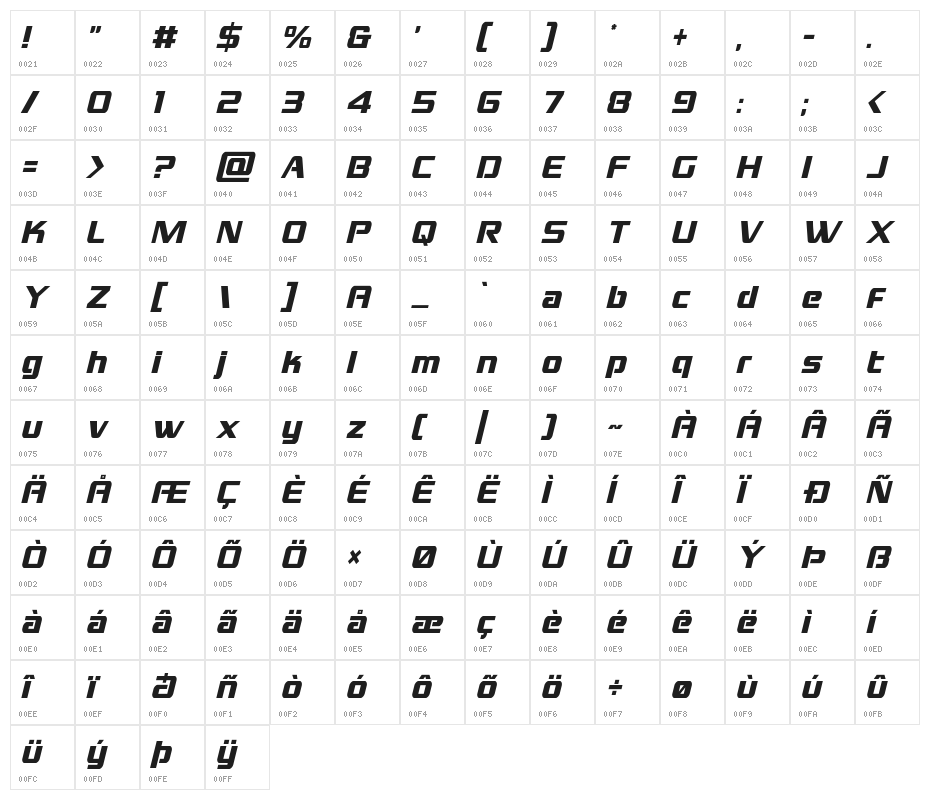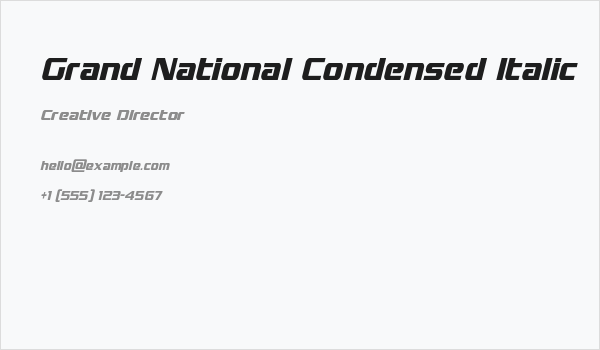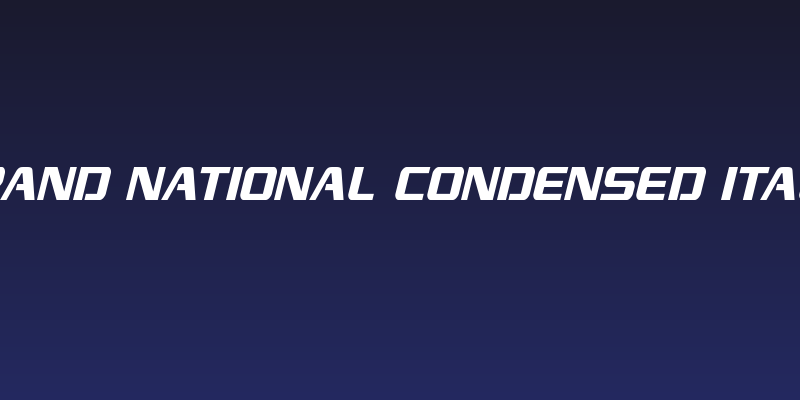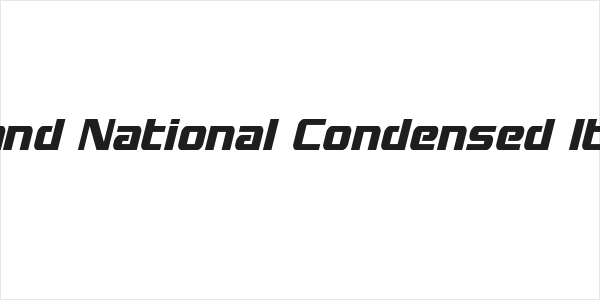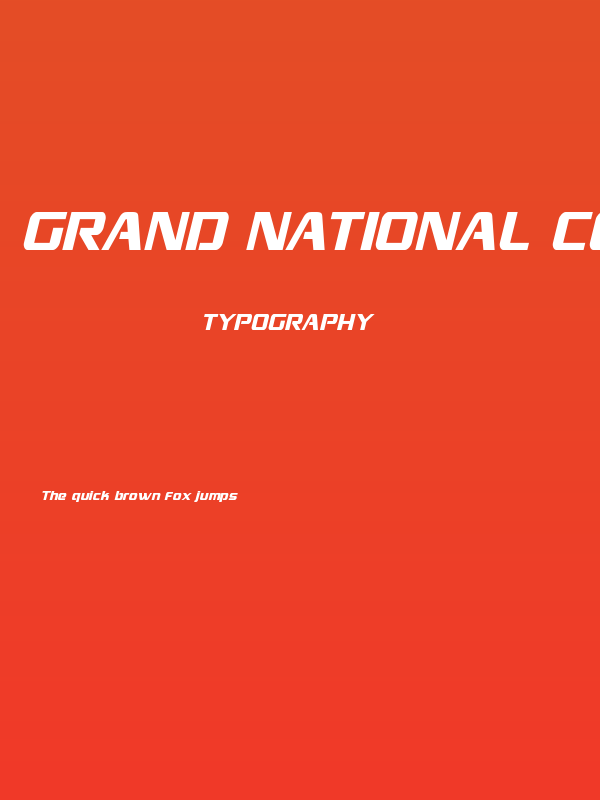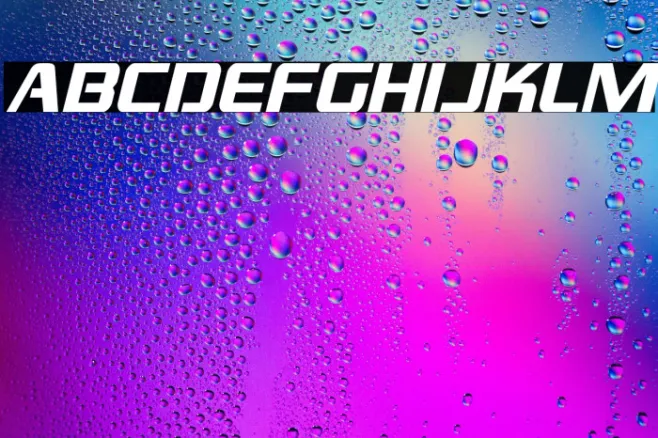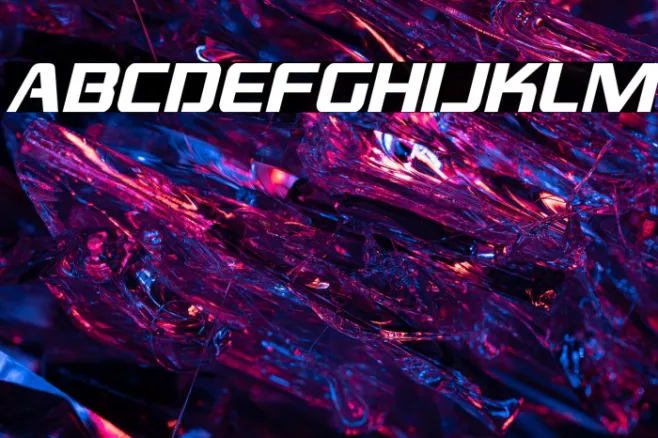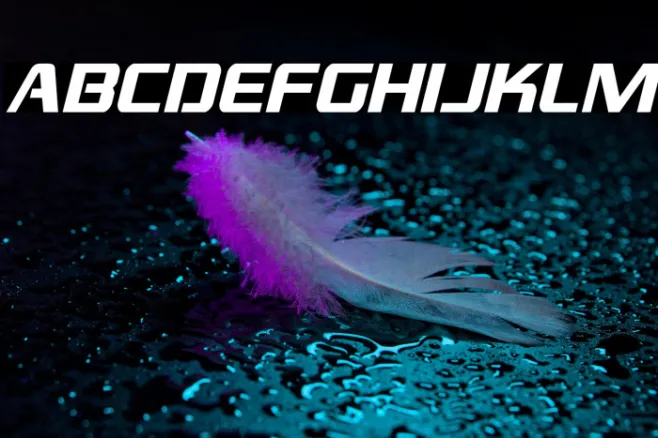
Grand National Condensed Italic Font
Grand National Condensed Italic Description
This font features a dynamic and modern design with a condensed structure and italicized style. The characters are sleek and angular, giving a sense of motion and energy. The uppercase and lowercase letters maintain a consistent slant, enhancing the italic effect. The numerals and special characters are designed to match the overall aesthetic, with sharp edges and a futuristic feel. The font's condensed nature allows for efficient use of space, making it suitable for various design applications where a bold and impactful statement is desired.